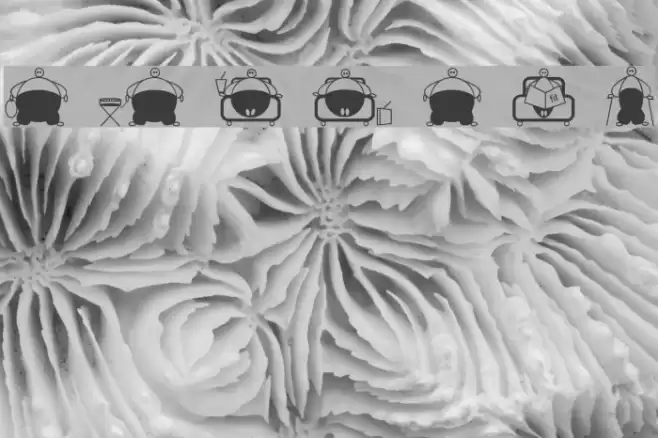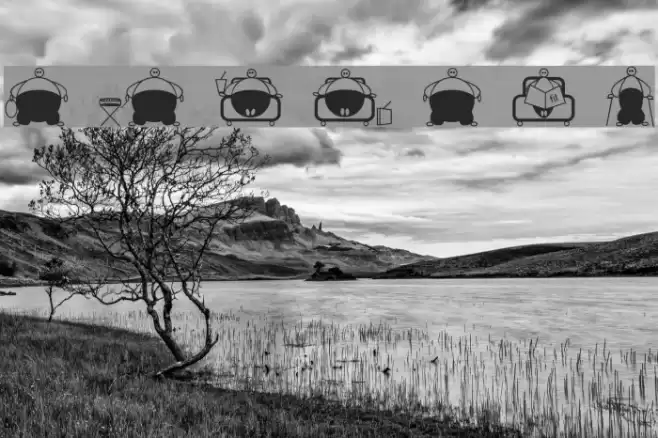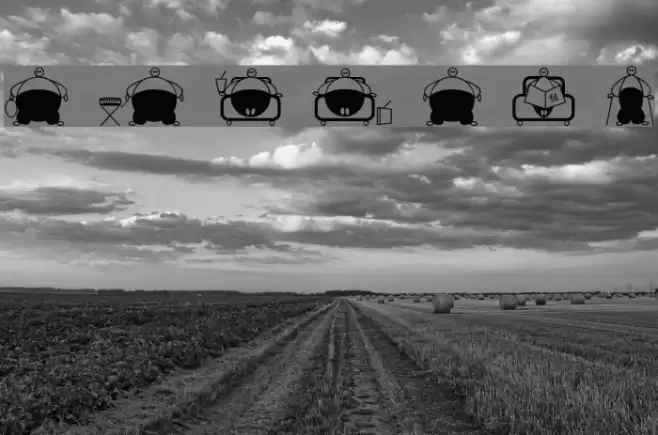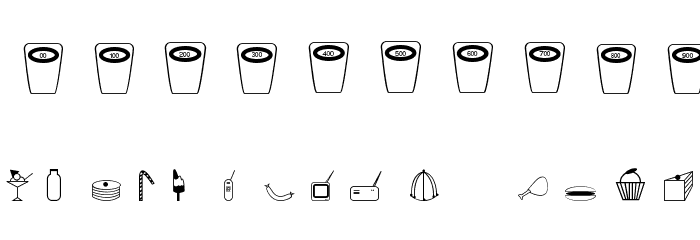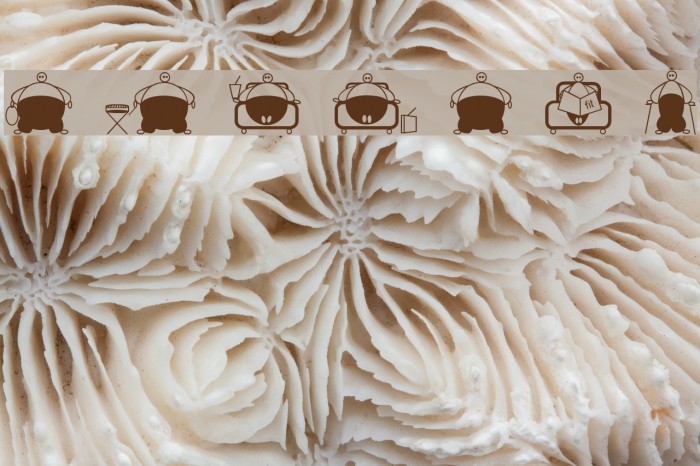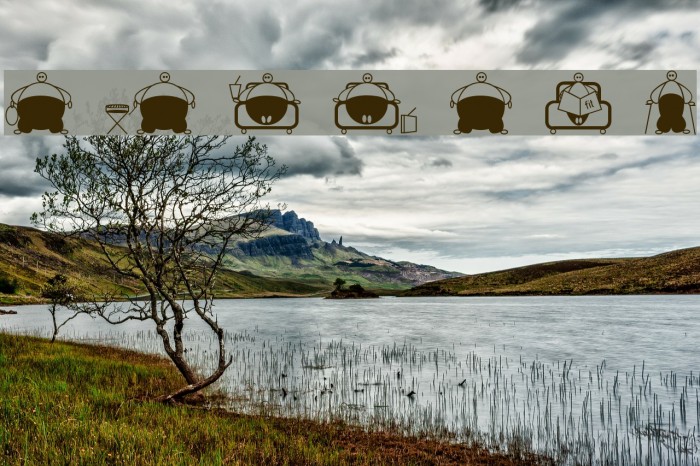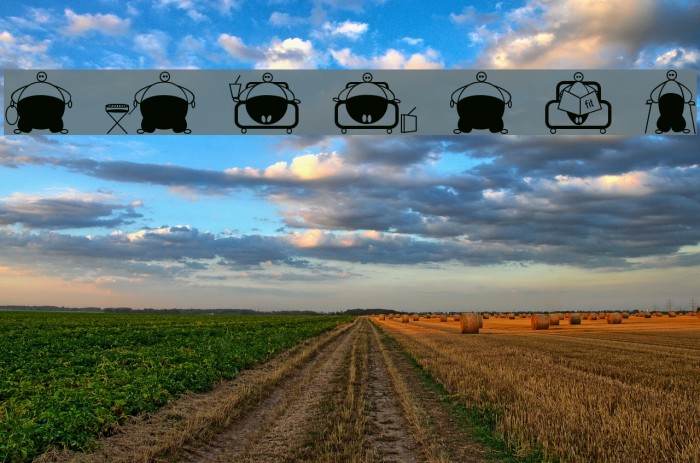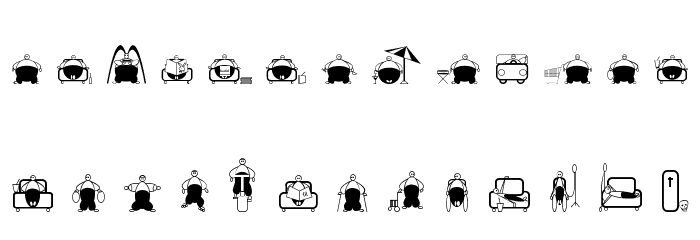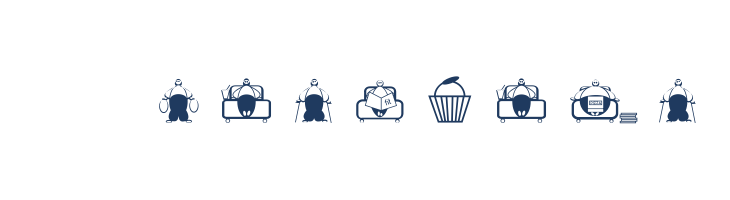
Slimfast Font
Slimfast Description
A playful, pictogram-based decorative font featuring cartoonish illustrations of people, objects, and activities related to weight, health, and lifestyle. Each character is represented by a unique, minimalistic line drawing rather than traditional letterforms.
Whimsical pictogram font with health and lifestyle motifs from Dingbats fonts.
- Proposed Projects: Health campaigns, children's materials, infographics, playful branding, educational posters.
- Overall Style: Playful, Decorative, Modern
- Use Case: Logos, Posters, Educational materials, Themed graphics